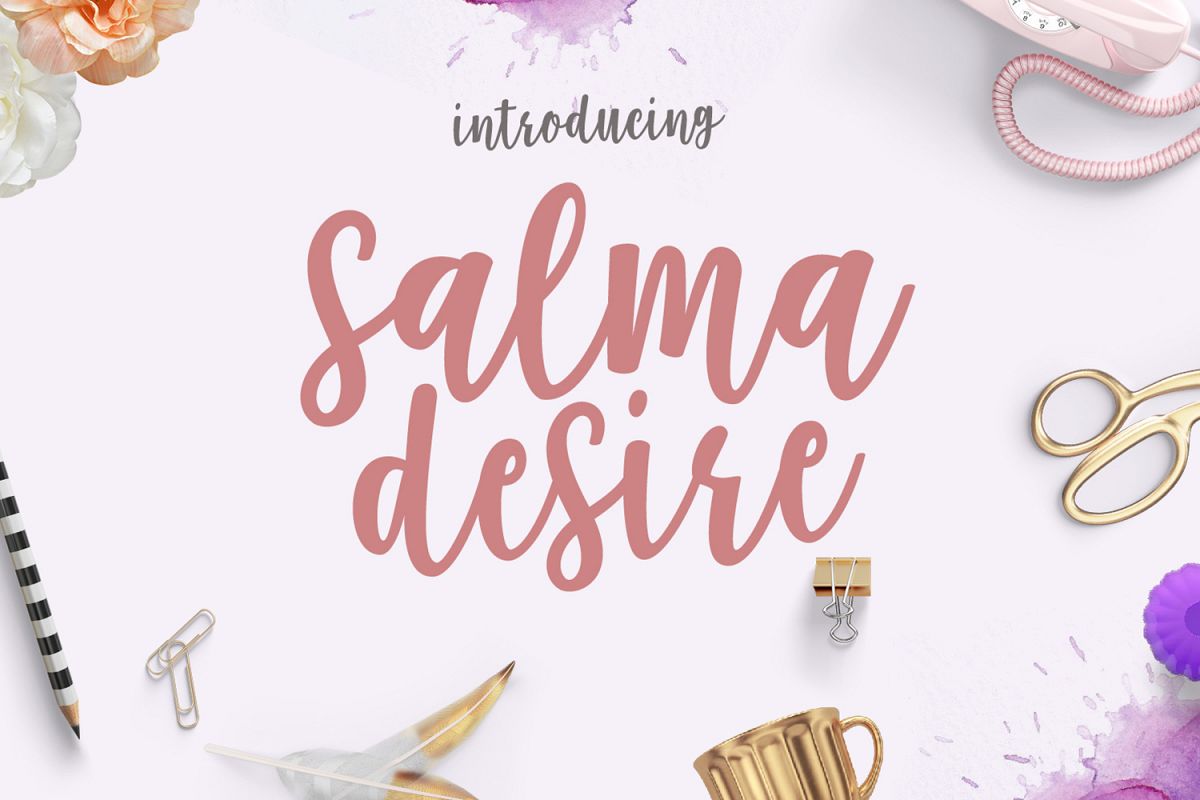
Salma introduces new hand lettered calligraphy font typography modern calligraphy script, which combines classic style with modern style calligraphy
Initial letter standard free glyph forward Salma update 500 more glyphs in a font including style set, Contextual Substitute etc. OpenType features with Can be used for various purposes such as title, signature, logo, wedding invitations, t-shirts, letterhead, signage, labels, newsletters, posters, badges etc.